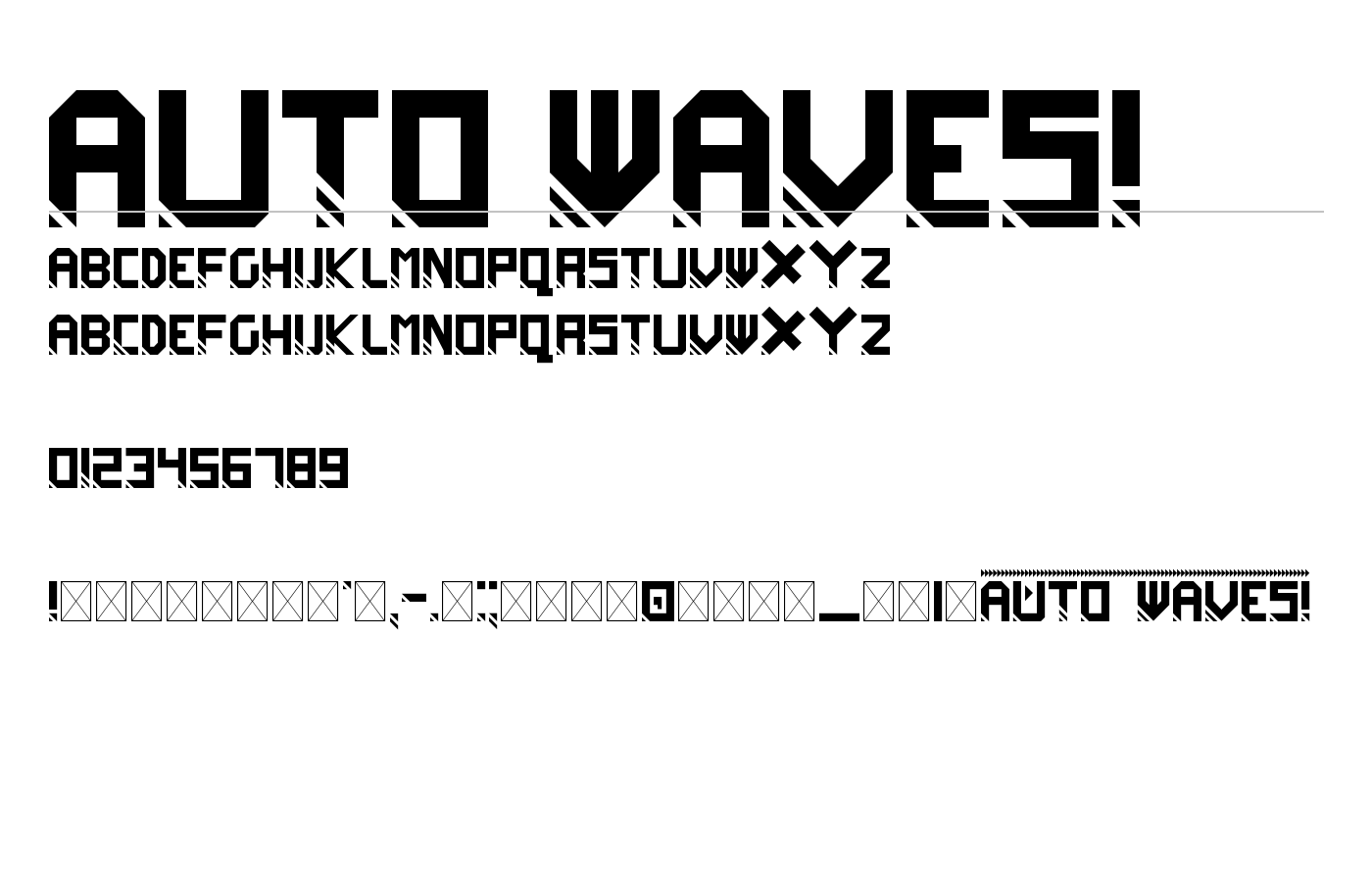
Auto Waves! is a bold, geometric sans serif font with a futuristic and mechanical vibe, characterized by its sharp angles and striking diagonal cut shapes that give a sense of movement or vibration. Its strong weight and condensed structure make it ideal for attention-grabbing headlines and display use, especially in technology, gaming, or automotive branding where a dynamic, edgy look fits perfectly.
Auto Waves! Font
About Auto Waves! Font